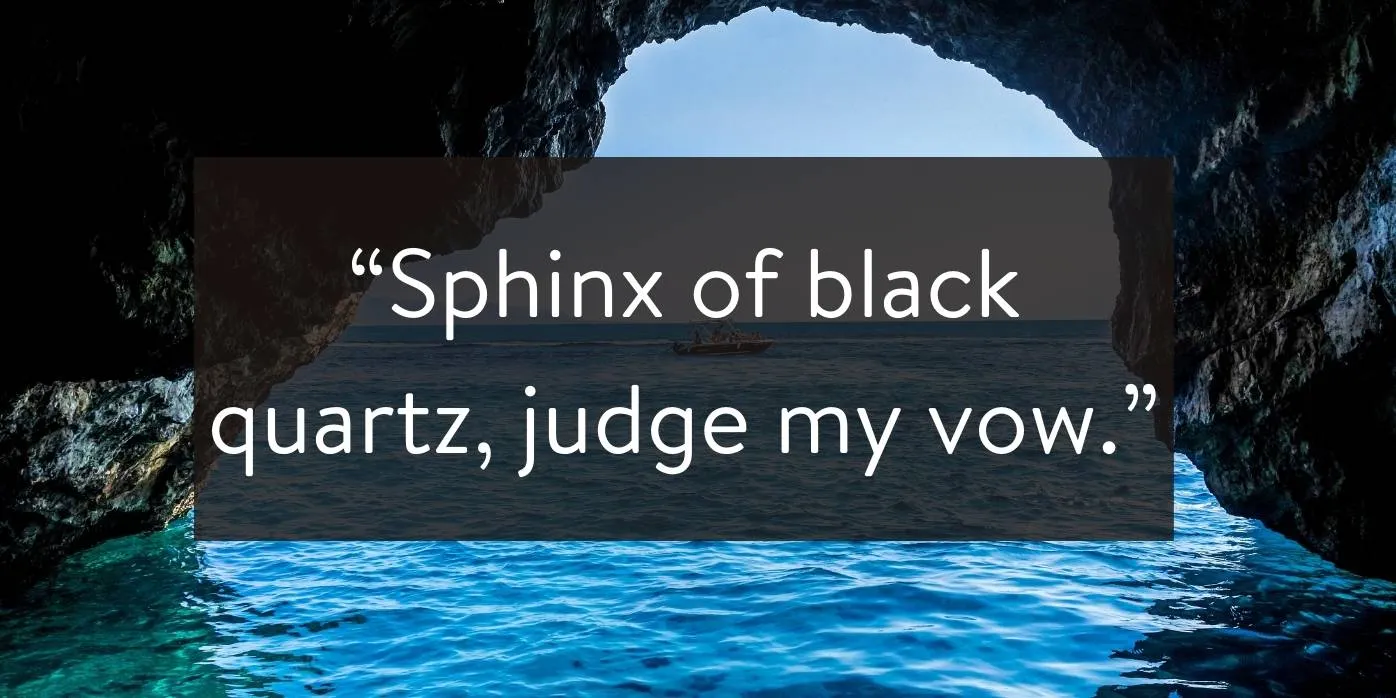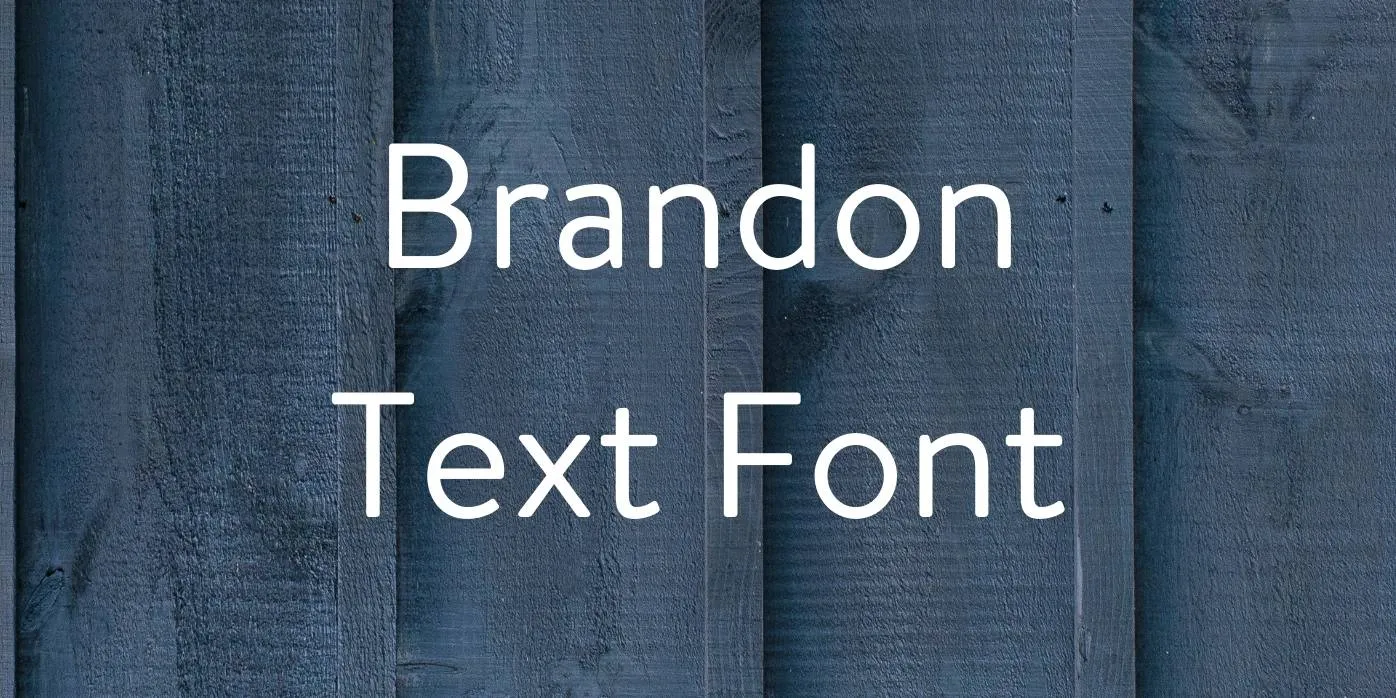
Brandon Text Font
Brandon Text Font is developed by Hannes von Döhren. This classy typeface belongs to the Sans-Serif typeface. This typeface is a versatile font with uppercase, lowercase, numerals, punctuations, and some glyphs. This classy font is perfect for any kind of design project such as headings, logos, and t-shirt designs.
This typeface has an elegant and timeless feel to it that makes it perfect for a wide range of design projects. It also includes a number of different glyphs, which makes it perfect for a wide range of applications. If you’re looking for a versatile and stylish font, this awesome typeface is definitely worth considering. Its round corners and simple design give it a timeless feel, which makes it best for different designs.
It’s stylish and versatile, making it perfect for just about any design project you might need it for. Whether you’re creating a brand-new logo by this typeface.